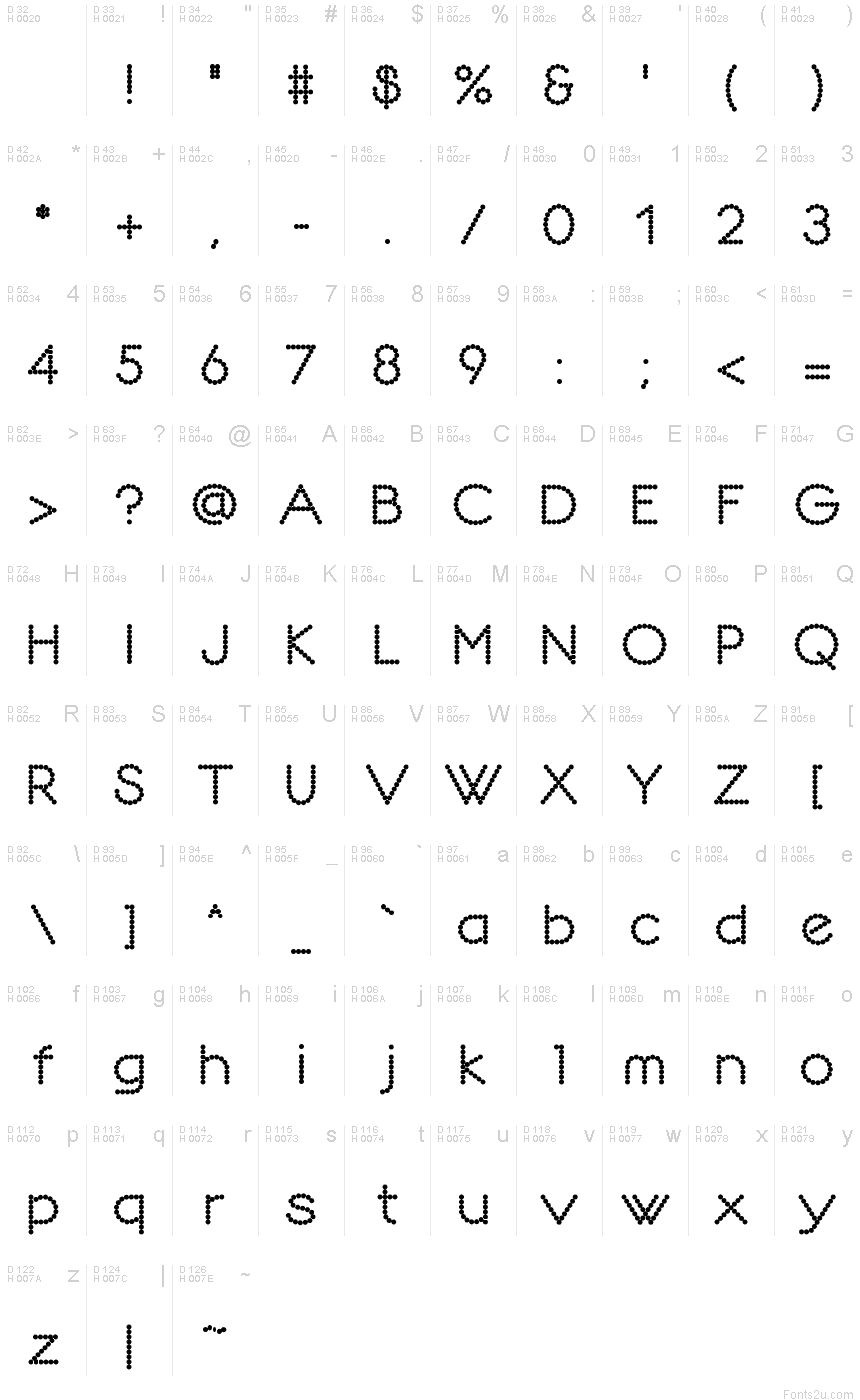
Dotline Heavy by Honey&Death is a free dotted display font built entirely from evenly sized circles. The separate dots trace broad, rounded letterforms with a simple geometric structure. Its broken strokes give the lettering the look of lights, beads, or punched holes.
Light-based themes and playful geometric graphics make it a good match for music posters, event branding, and digital graphics. In publishing, a magazine cover line can become a patterned element linked to circular illustration or halftone artwork.